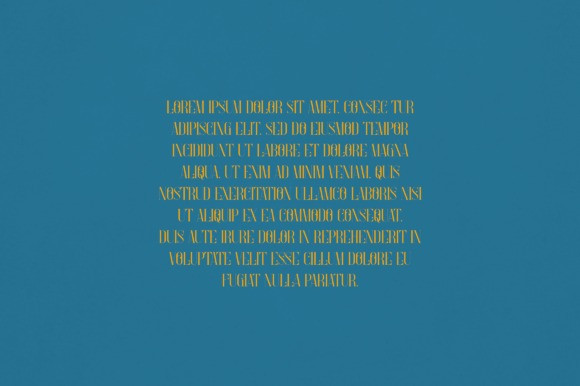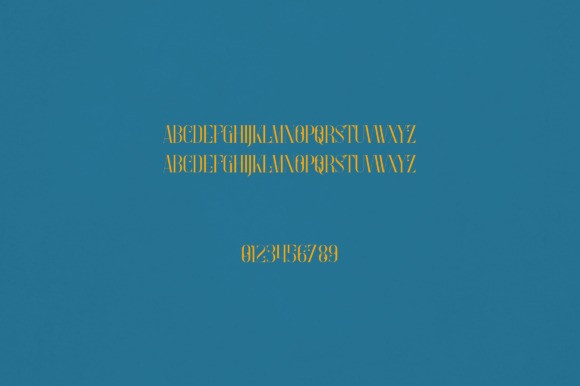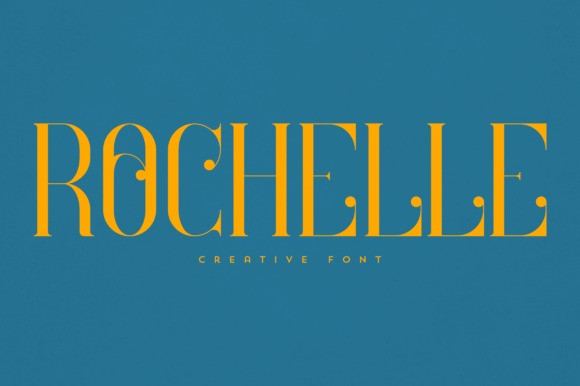
Rochelle Font
Rochelle Font is an elegant and versatile serif font that will make your typography truly unique! It will enchant every logo, branding, headline, or plain text!